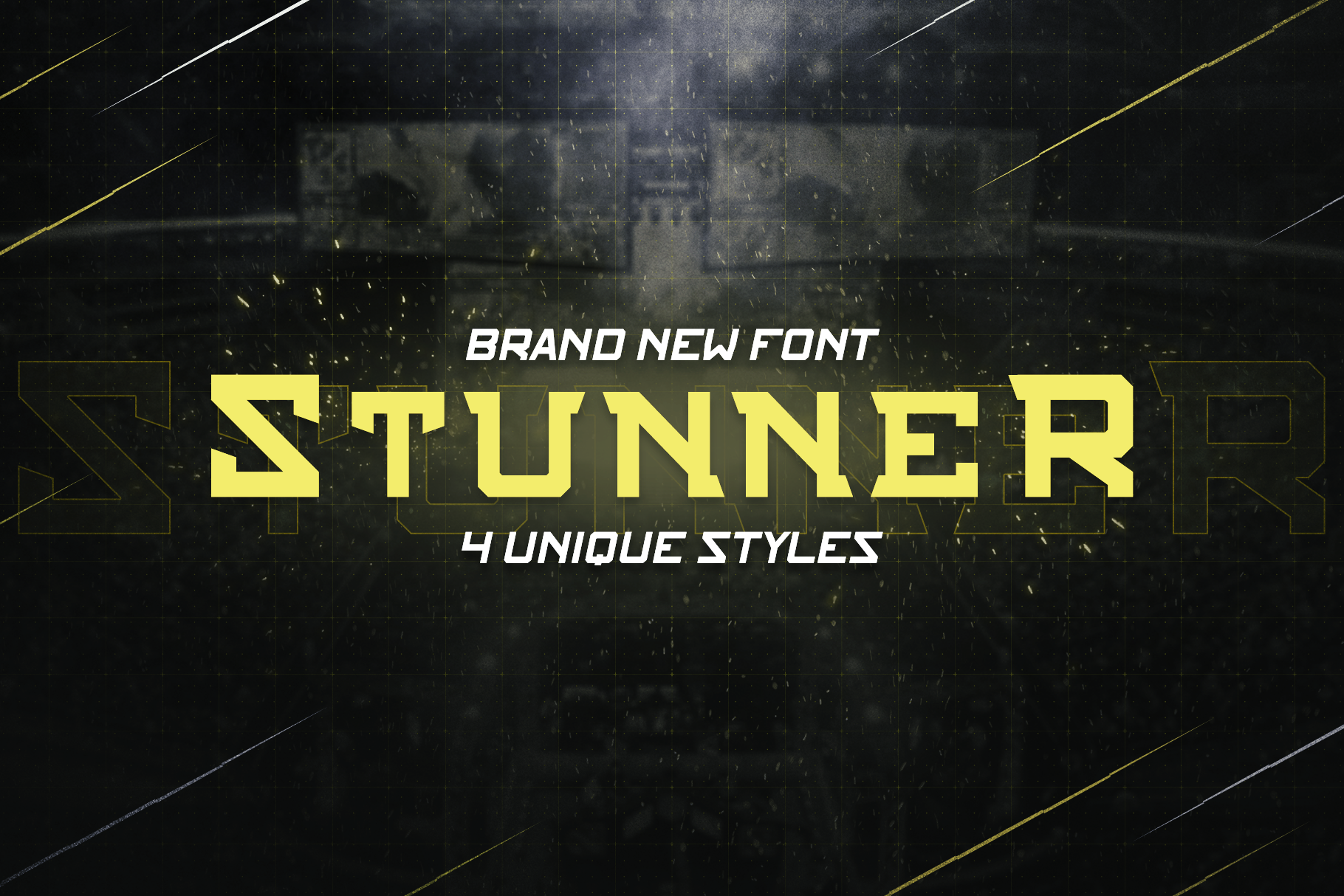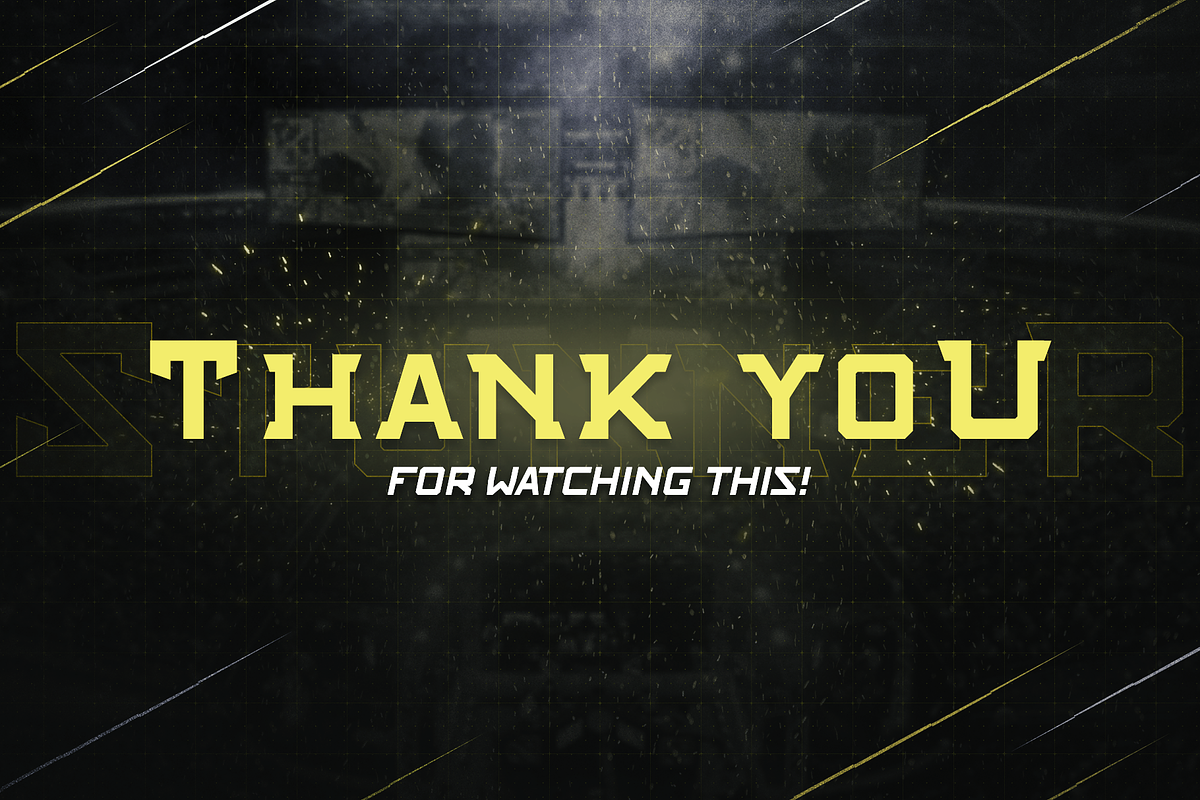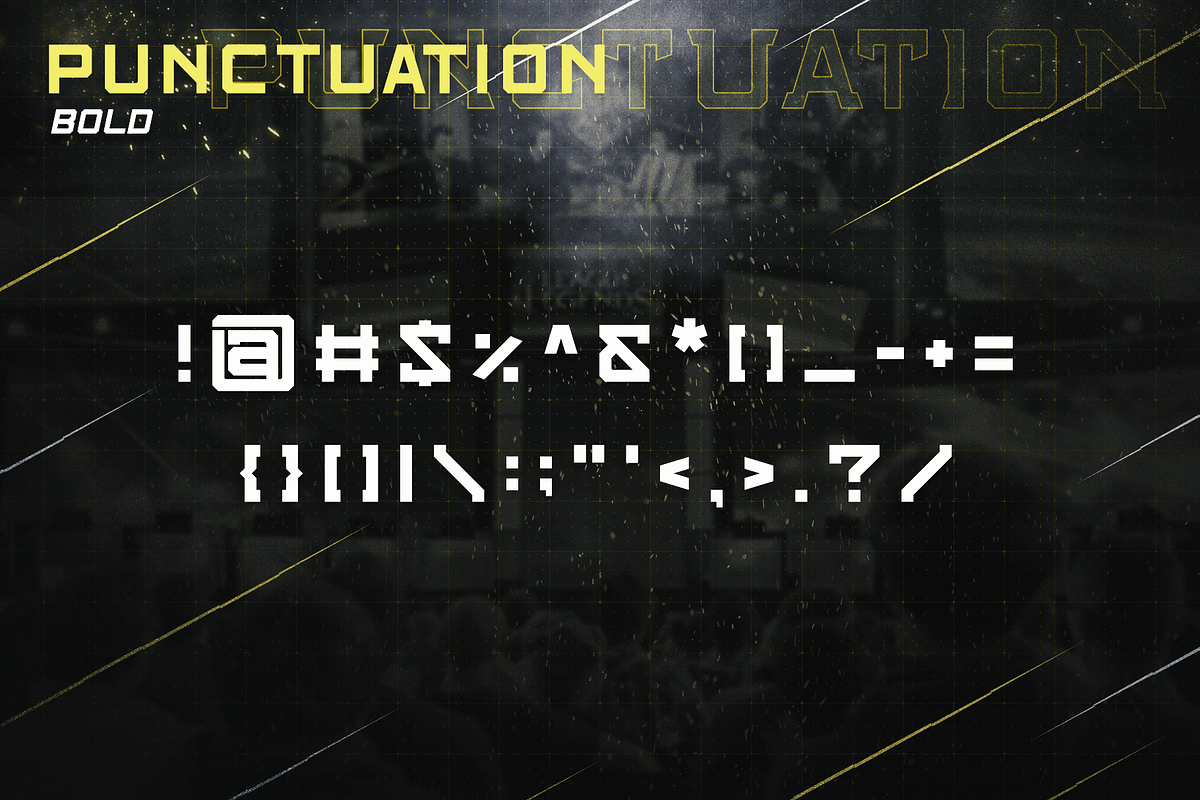
STUNNER font, is our new item that suitable for sports & e - sports industries. This font's included in NFC font family.
Great for
Logo, Sticker, Jersey, Invitation Card, Brochure, etc.
- 4 Unique Style
- Included Regular, Bold, Italic & Bold Italic in every each Style